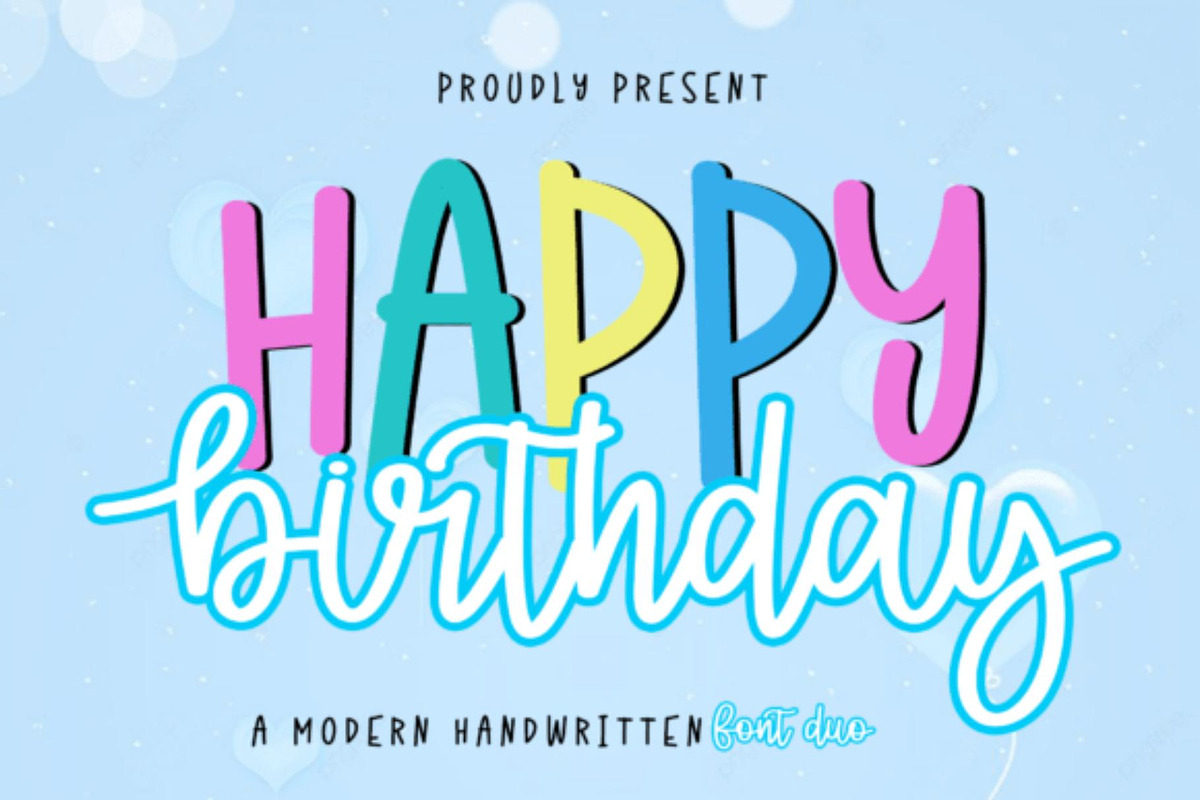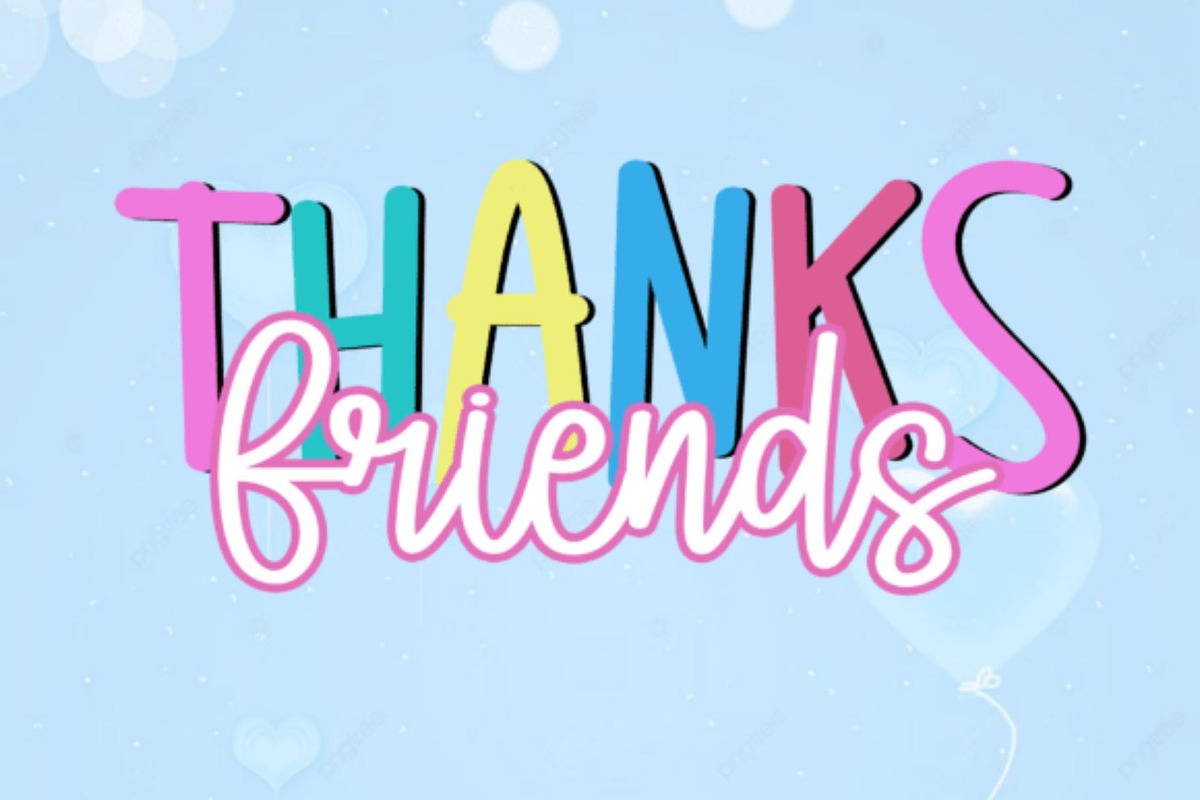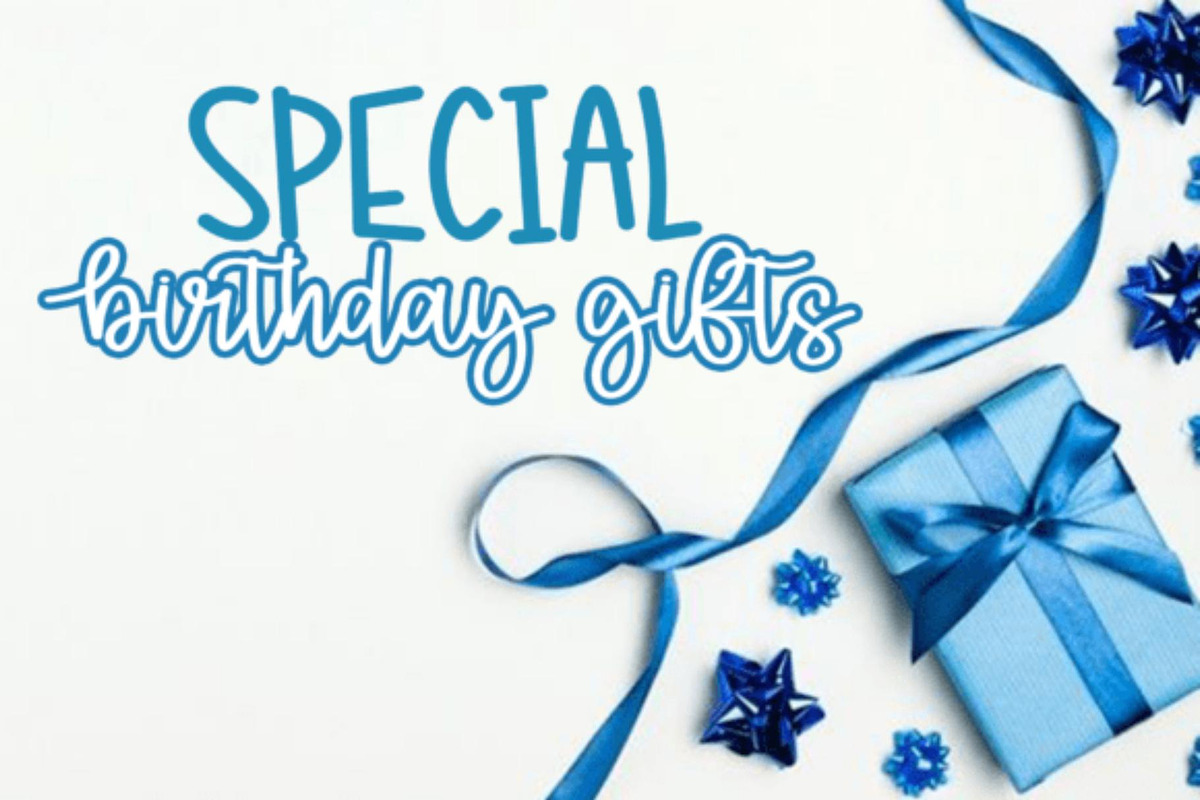
Happy Birthday Duo | Handwritten
Happy Birthday Duo is a modern handwritten font duo that combines a playful bold sans serif with a flowing script font.
This font pair is perfect for:
• Birthday invitations
• Party decorations
• Social media graphics
• Greeting cards
• Kids projects
• Event flyers
• Stickers
• Branding projects
• Cricut and Silhouette crafts
This cheerful font duo is designed to bring a fun and celebratory feel to any creative project.
Happy Birthday Duo is a playful handwritten font duo featuring a bold sans serif and flowing script. Perfect for birthday invitations, party decorations, greeting cards, social media graphics, Cricut projects and creative branding.